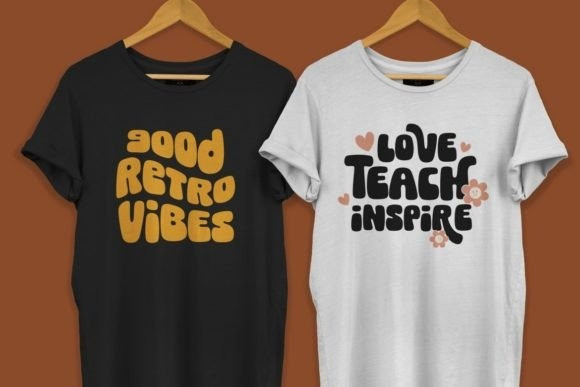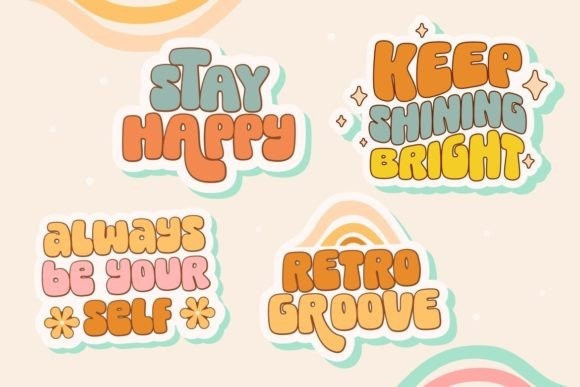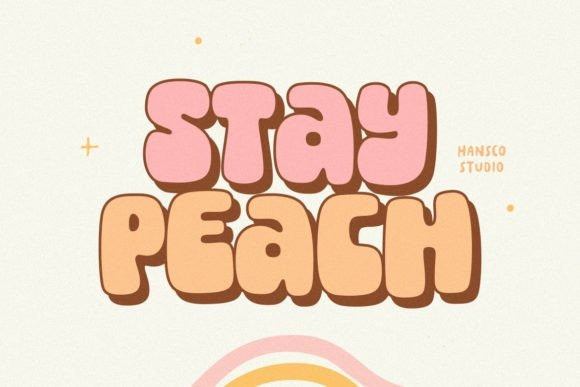
Stay Peach Font
Stay Peach Font is a bold retro serif font that feels clean and bold an incredible modern retro aesthetic. This font features a ligature feature on capital letters which allows the font to look unique with a cute style. Use this Stay Peach font to add that special modern retro touch to any design idea you can think of!